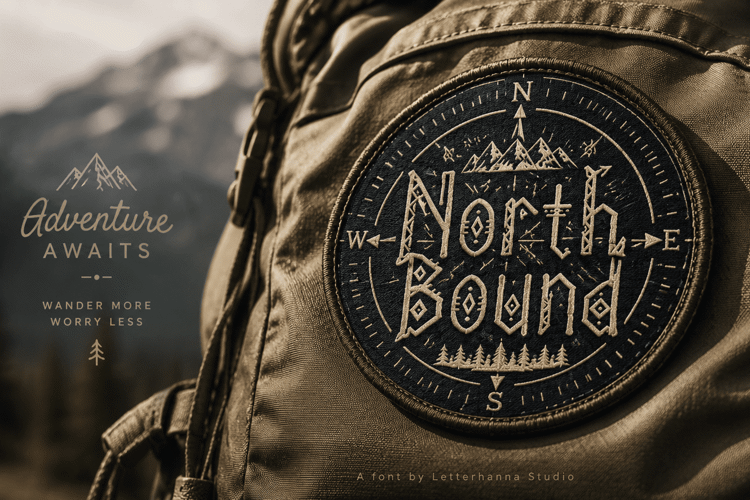
Archbolt Only Font
Archbolt: A Tribal Font for Rustic, Native-Inspired Designs
Meet Archbolt, a tribal font carved with rugged, hand-etched details and primal energy. Inspired by ancient totems and native craftsmanship, every letter feels chiseled from stone. Archbolt brings a rustic, adventurous edge to logos, posters, western branding, and outdoor apparel. Whether you're building an earthy brand or a striking festival design, Archbolt delivers raw character in every stroke. Grab this tribal font today for an untamed, ancestral voice.